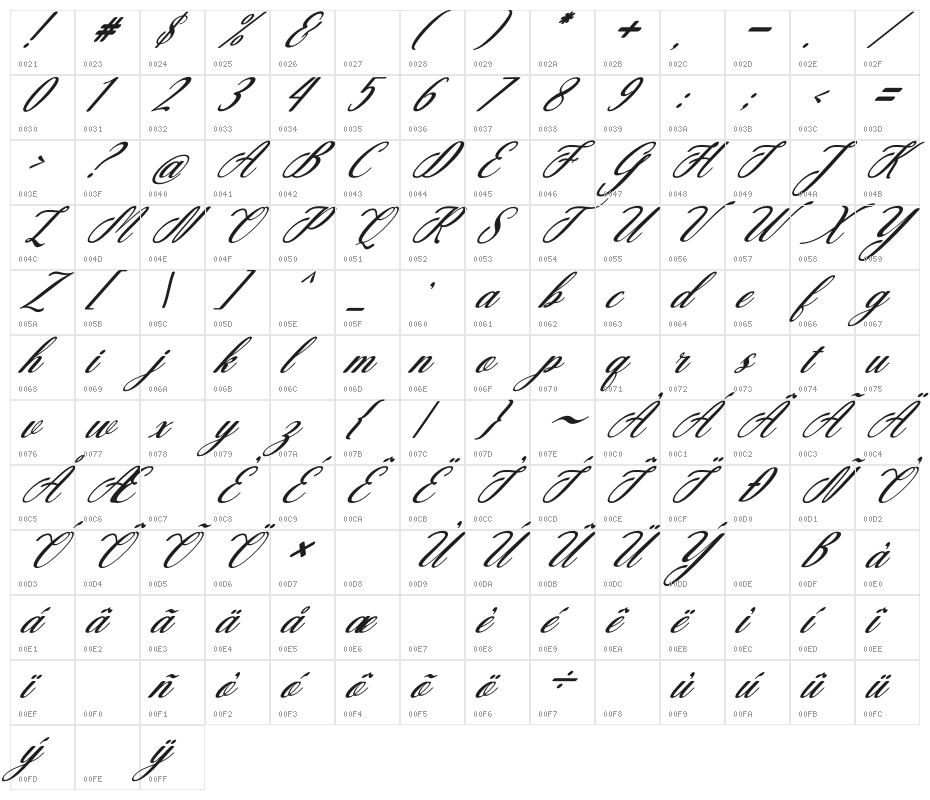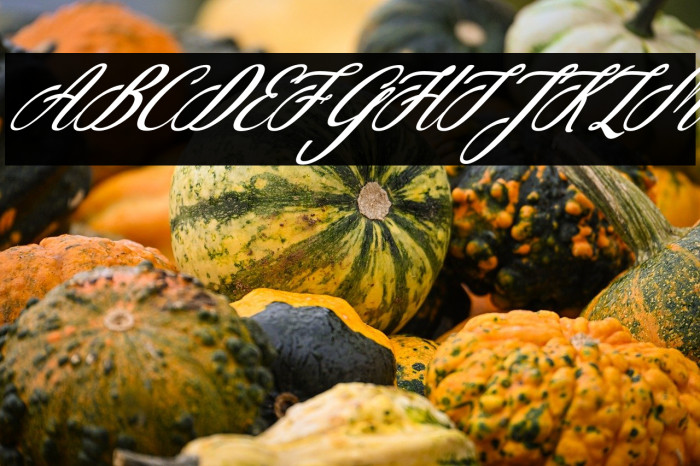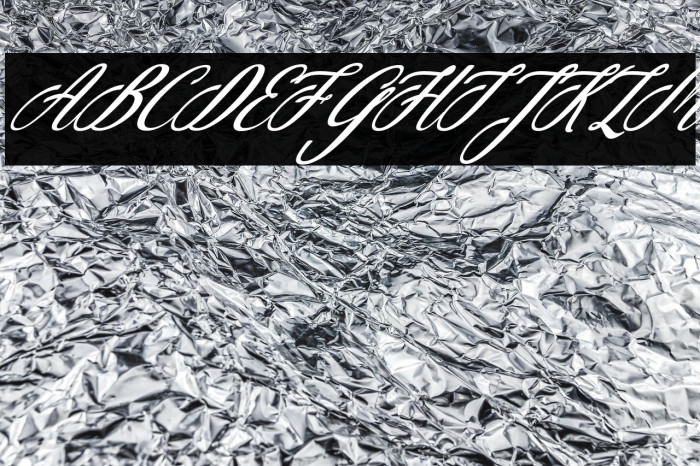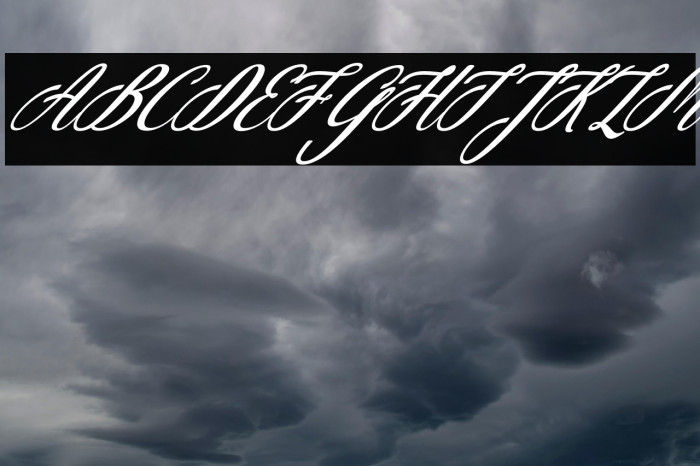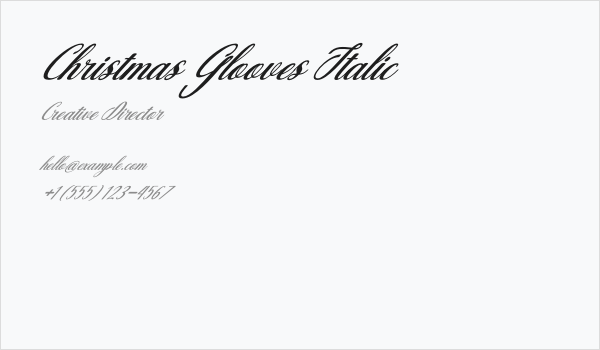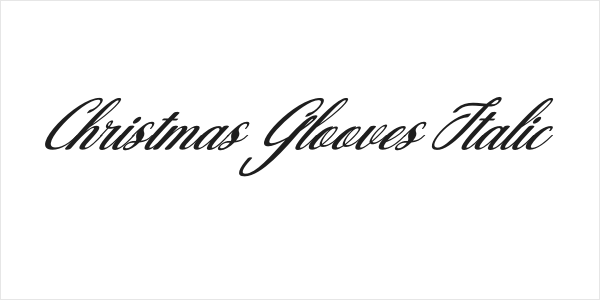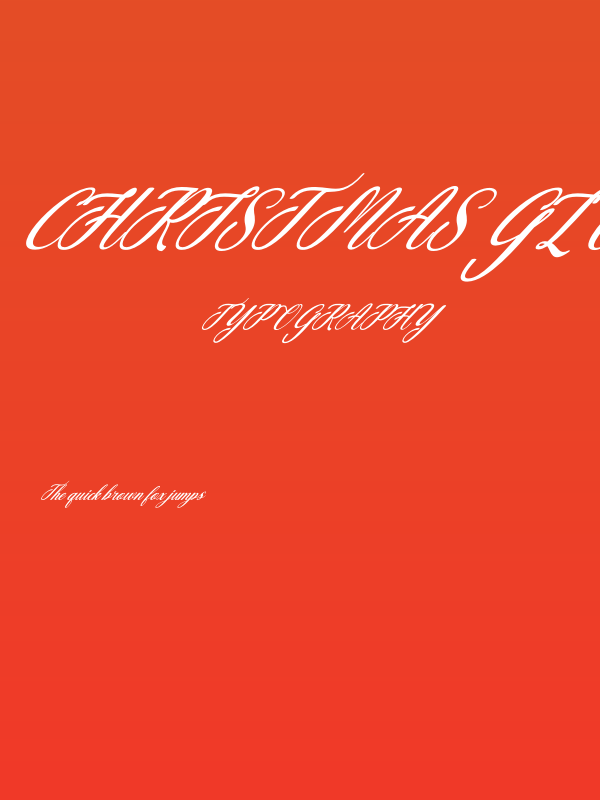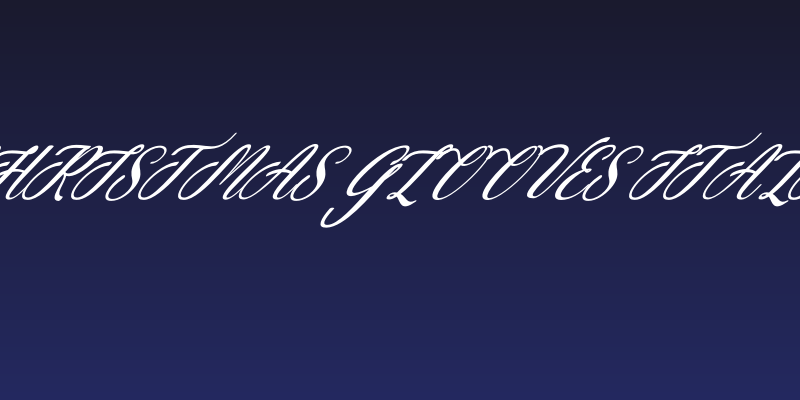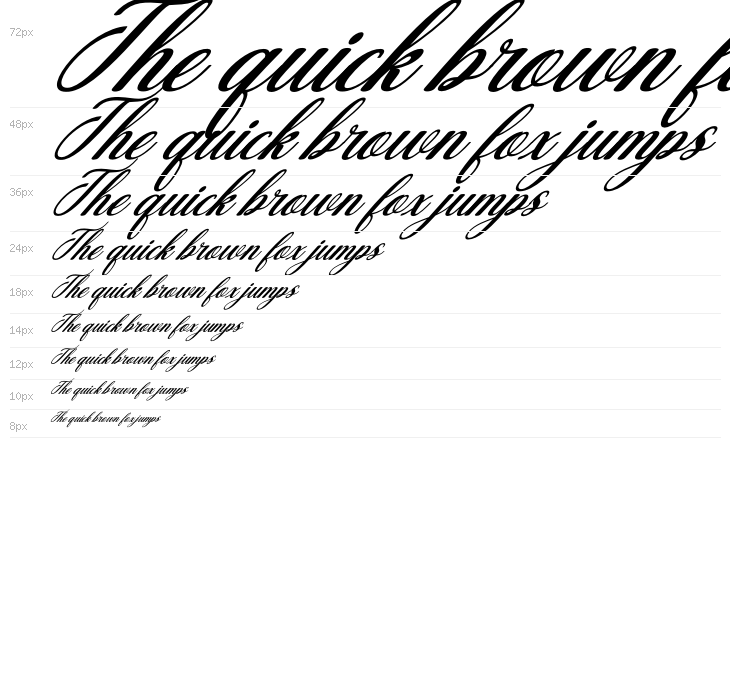
Christmas Glooves Italic Font
Christmas Glooves Italic Description
This font exudes a festive and elegant style, characterized by its flowing, cursive script that mimics the fluidity of handwritten calligraphy. The letters are slanted, adding a dynamic and lively feel, perfect for capturing the essence of holiday cheer. The strokes are bold and confident, with a high contrast between thick and thin lines, enhancing its readability while maintaining an artistic flair. The characters are closely spaced, creating a cohesive and continuous visual flow. This font is ideal for projects that require a touch of sophistication and warmth, such as holiday cards, invitations, and festive branding.
| Proposed Projects | Holiday cards, festive invitations, seasonal branding, decorative signage. |